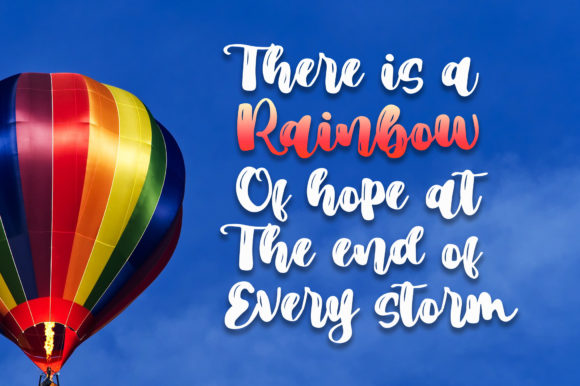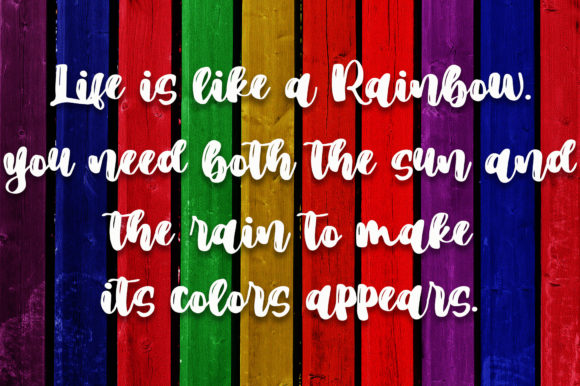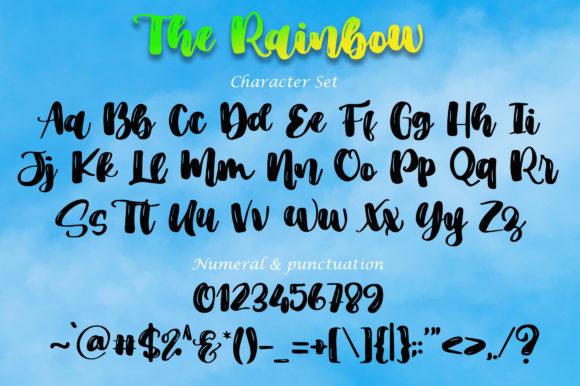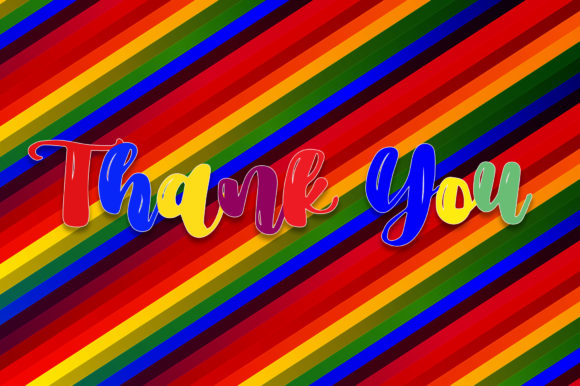
The Rainbow Font
About The Rainbow Font
The Rainbow is a chic, round lettered script font that emanates joy and charm. Its stylish alternates and ligatures make this font the perfect match for any project.